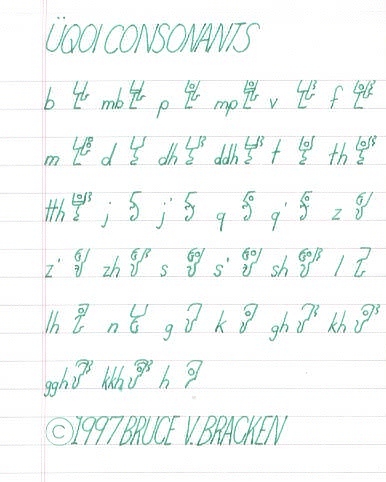
These are examples of Ü'üqoqoimbözhiighu, The Üqoi Alphabet. The first is the handwritten form:
The next five are printed forms, the first formal, the last three simplified: